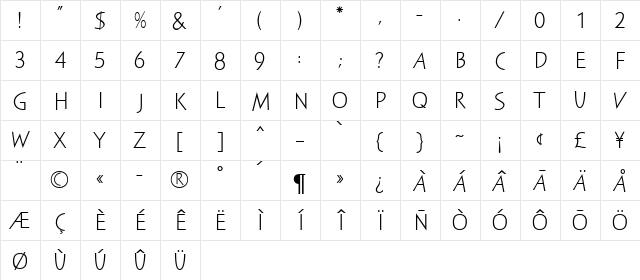
SayerSpiritual MN Regular
| Foundry | Mecanorma International . \ |
Design Context for SayerSpiritual MN Typeface
SayerSpiritual MN takes a measured approach to typography — its balanced proportions and neutral character make it a reliable workhorse for both digital and print work.